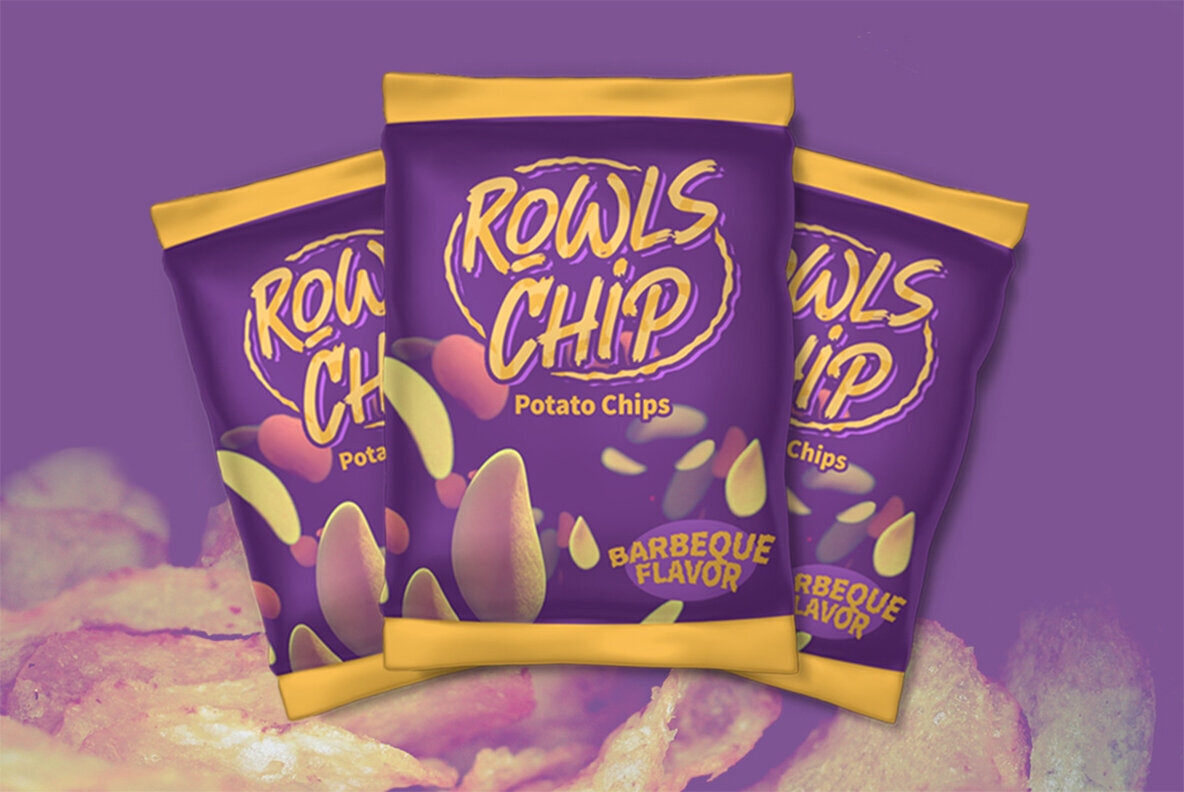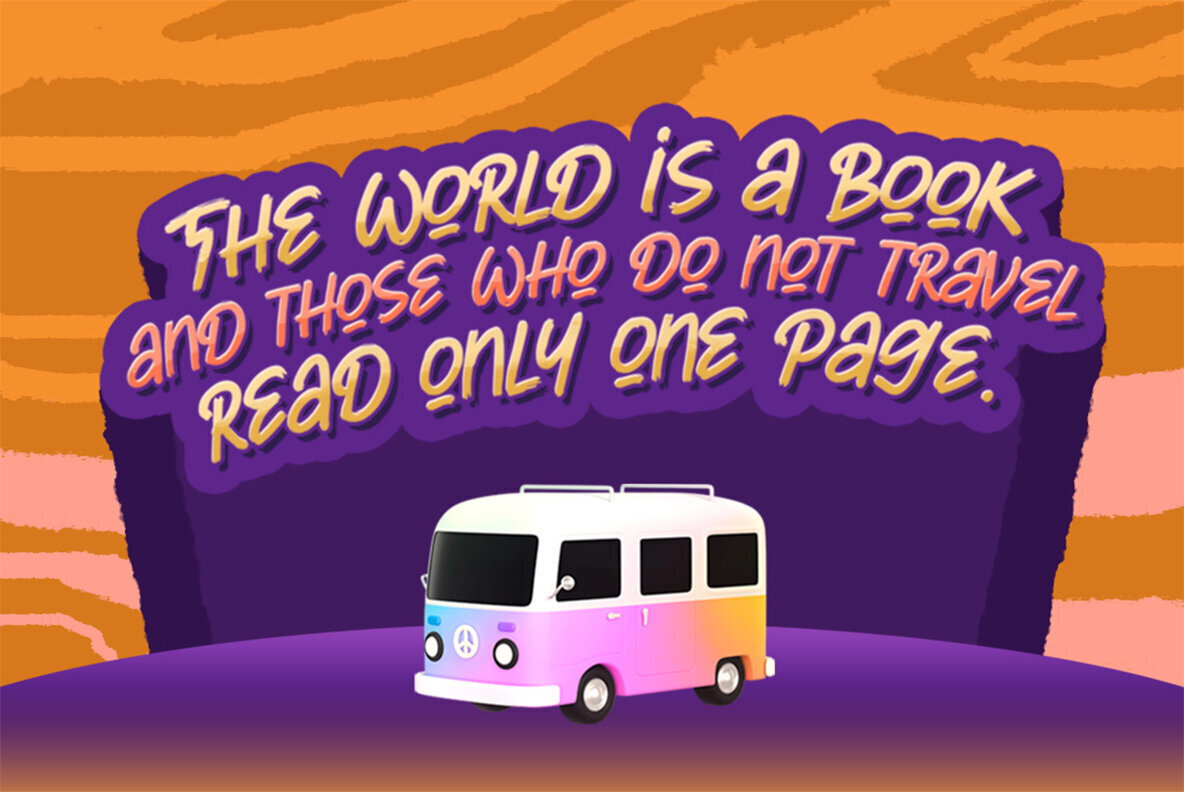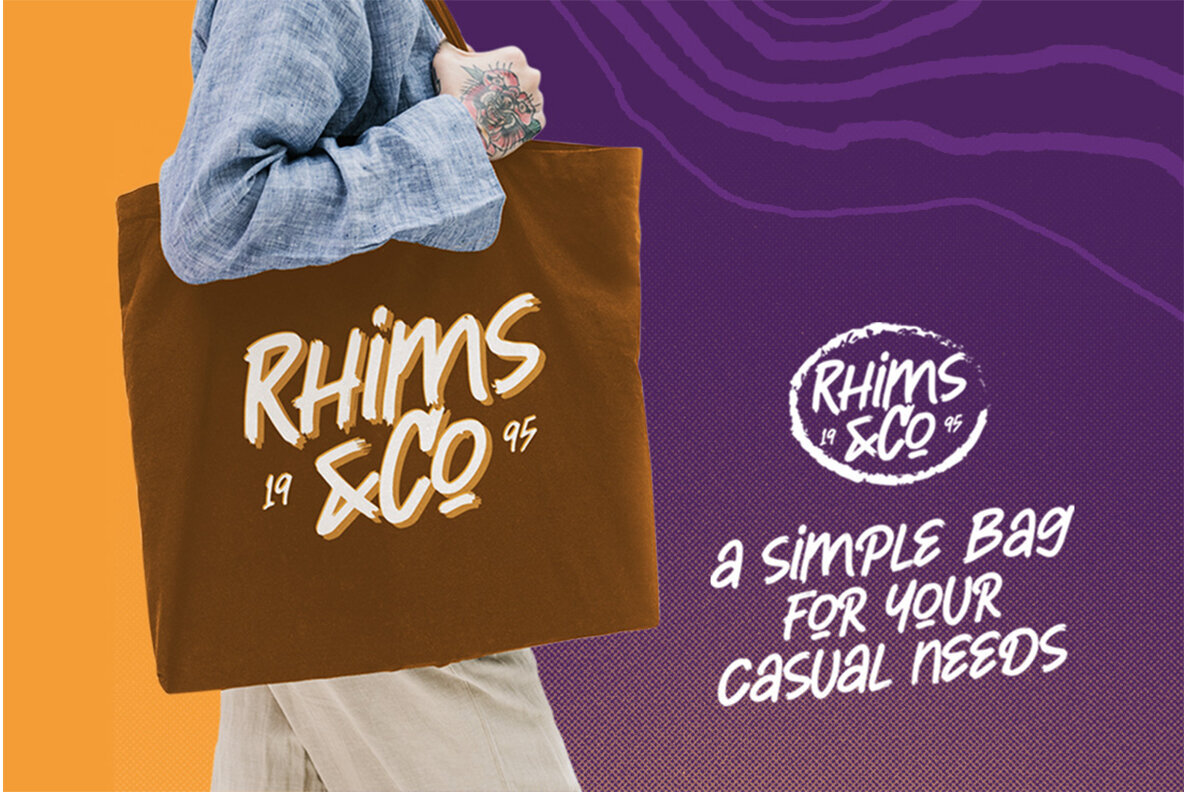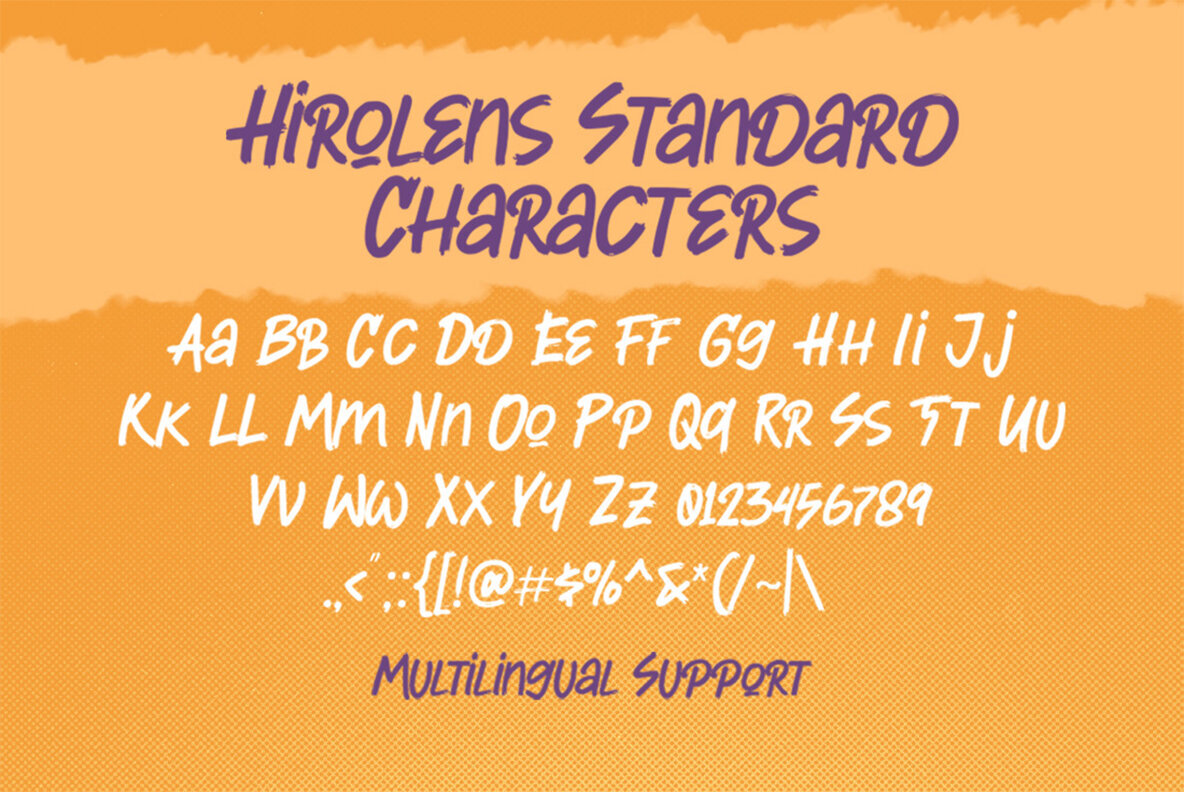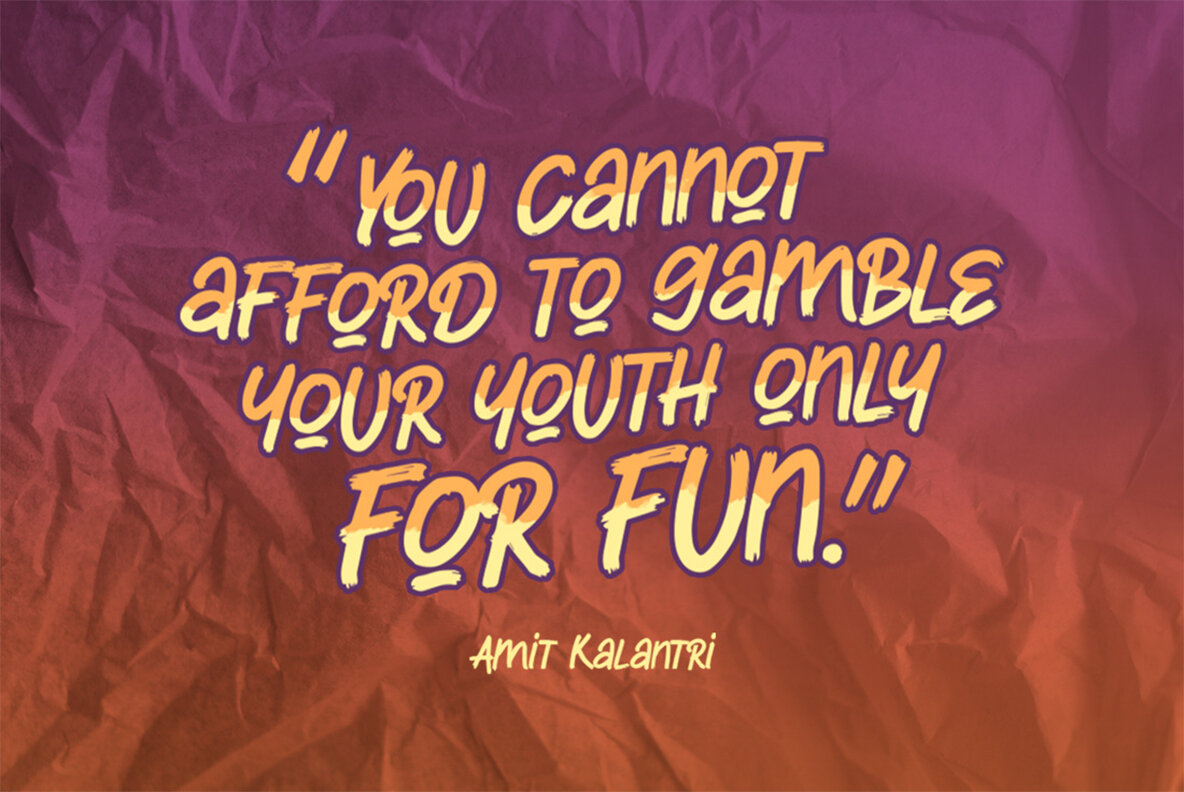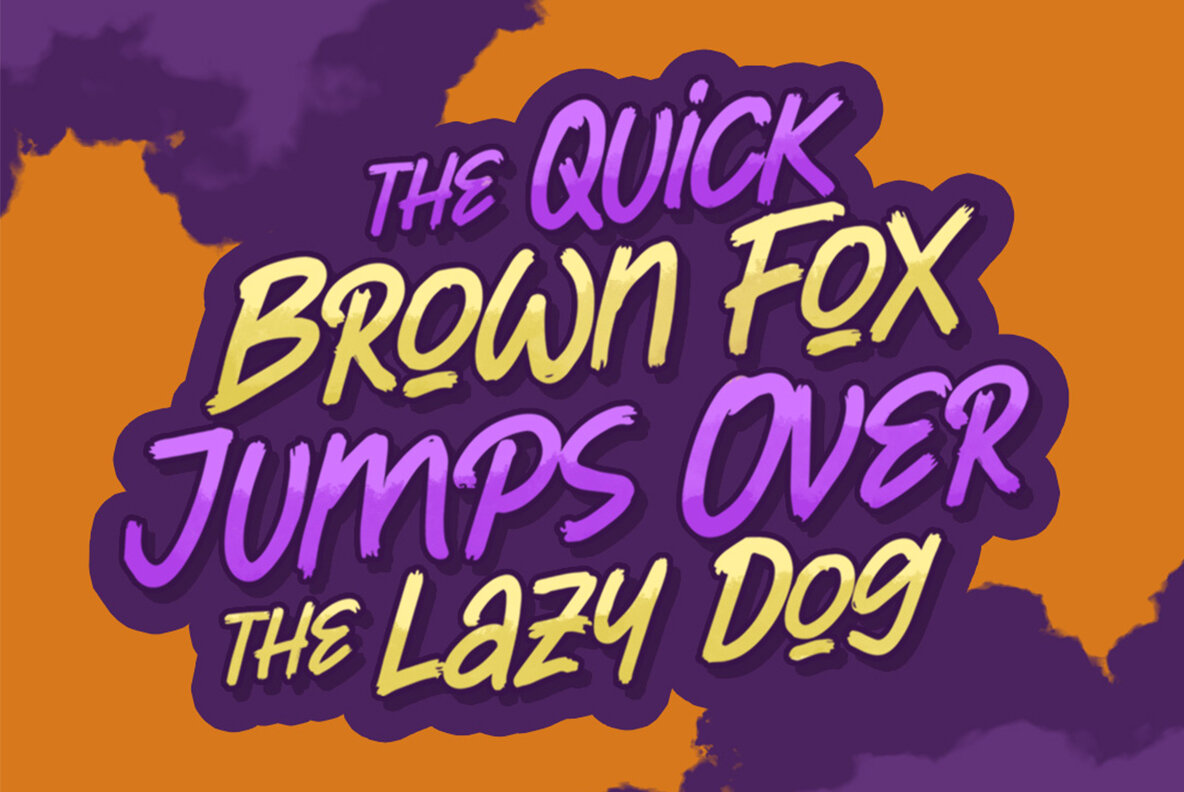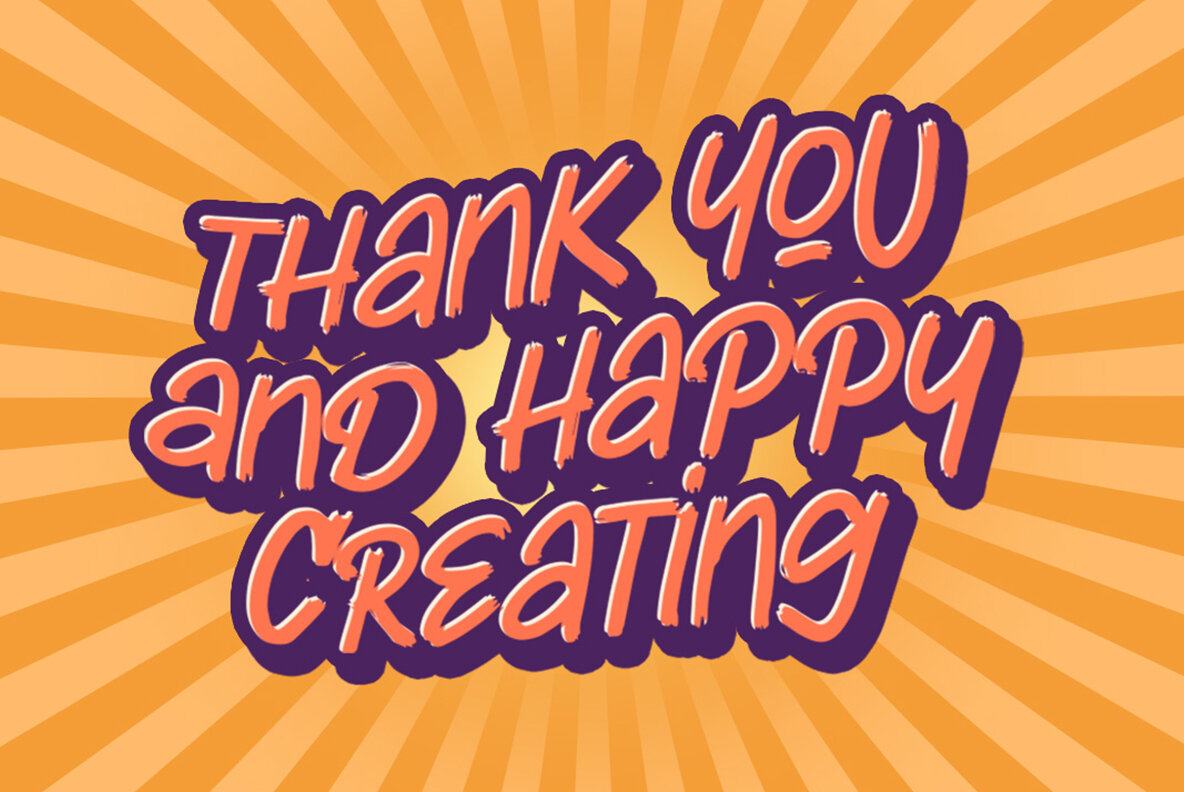
Hirolens 1
Hirolens is a script font that would be perfect for any project needing an explosions of color, like logos or magazine covers. The playful looks bring life into everything it touches!